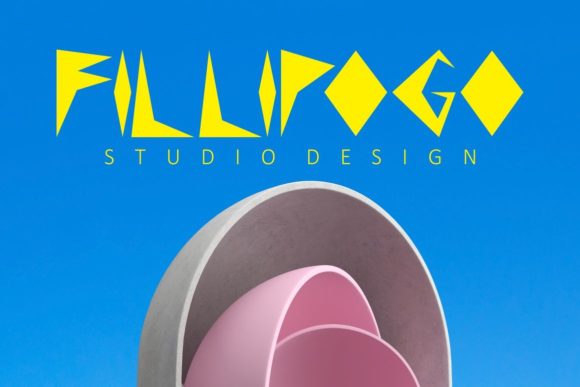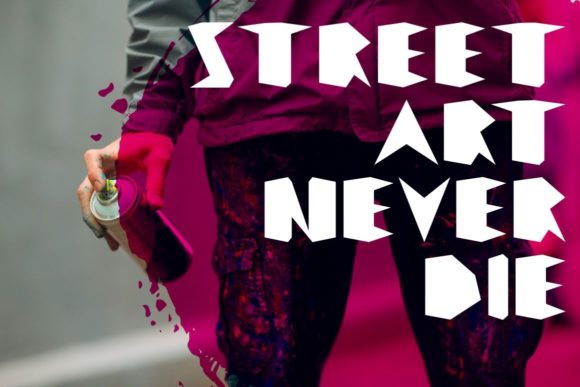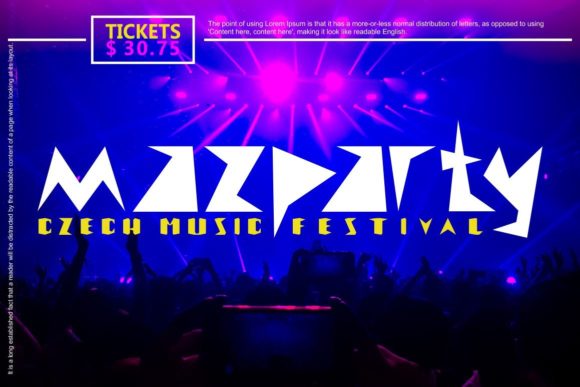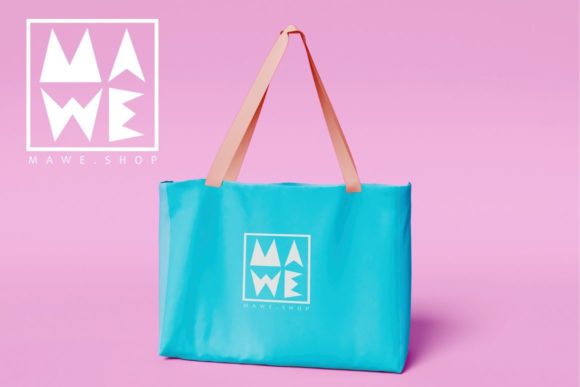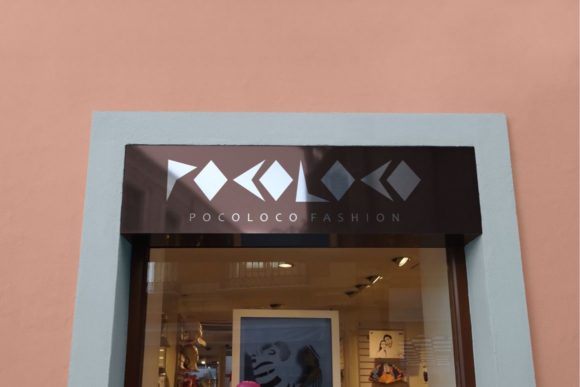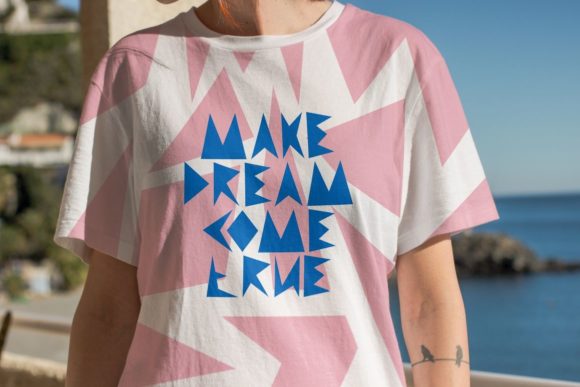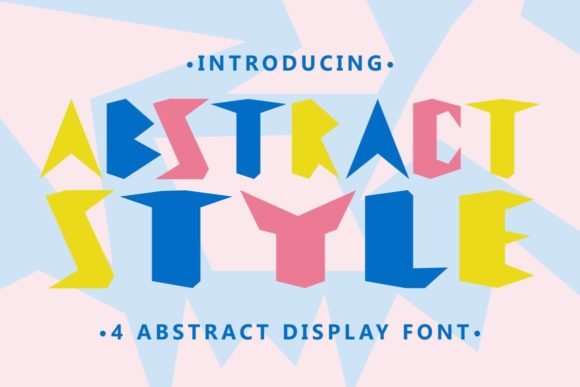
Get Ready to Unleash Your Creativity with Abstract Style Font
Have you ever stared at a blank page, searching for the perfect font to bring your design to life? That’s exactly where I was a few years ago, trying to infuse a sense of adventure into a project that needed something truly unique. Little did I know, the solution was just a few clicks away – in the form of the Abstract Style Font.
This remarkable display font is designed to add an authentic, adventurous feel to your next design idea. Whether you’re a seasoned designer or a creative beginner, Abstract Style Font is the perfect tool to help you stand out from the crowd and make a lasting impression. With its bold, eclectic style, this font is a valuable asset for any designer looking to push the boundaries of their creativity.
Abstract Style Font Key Features
- Unique Characteristics: The Abstract Style Font features a distinctive, hand-drawn aesthetic with irregular shapes and subtle texture, adding a touch of personality to any design project.
- Font Weight: The font family includes multiple weights, from Light to Bold, allowing designers to achieve a range of visual effects and moods.
- Language Support: The font supports a wide range of languages, including Latin, Cyrillic, and Greek scripts, making it a versatile choice for global design projects.
Design Review: Abstract Style Font
As a designer, I have to say that the Abstract Style Font is a unique and intriguing choice. It’s not for the faint of heart, but it can be a great fit for the right project.
Here are some things that I think work well: ✨
- Casual, laid-back feel: The font has a relaxed, organic vibe that’s perfect for creative projects, like magazines or advertisements.
- Highly customizable: The font’s abstract nature makes it easy to manipulate and adapt to different design styles.
- Expressive personality: The font’s irregularities give it a lot of character, making it stand out from more traditional fonts.
- Legibility issues: The font’s abstract nature can sometimes make it difficult to read, especially in smaller sizes or for people with vision impairments.
- Lack of consistency: The font’s irregularities can make it hard to maintain a consistent look throughout a design.
Overall, I think the Abstract Style Font is a great choice for designers who want to add some visual interest to their projects. Just be aware of the potential limitations and use it thoughtfully.
Abstract style fonts are commonly used in:
- Artistic and creative projects
- Posters and flyers